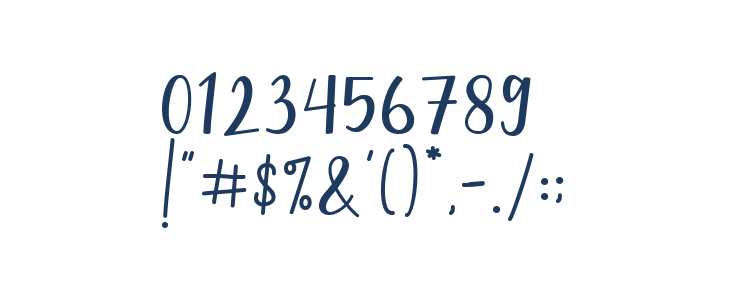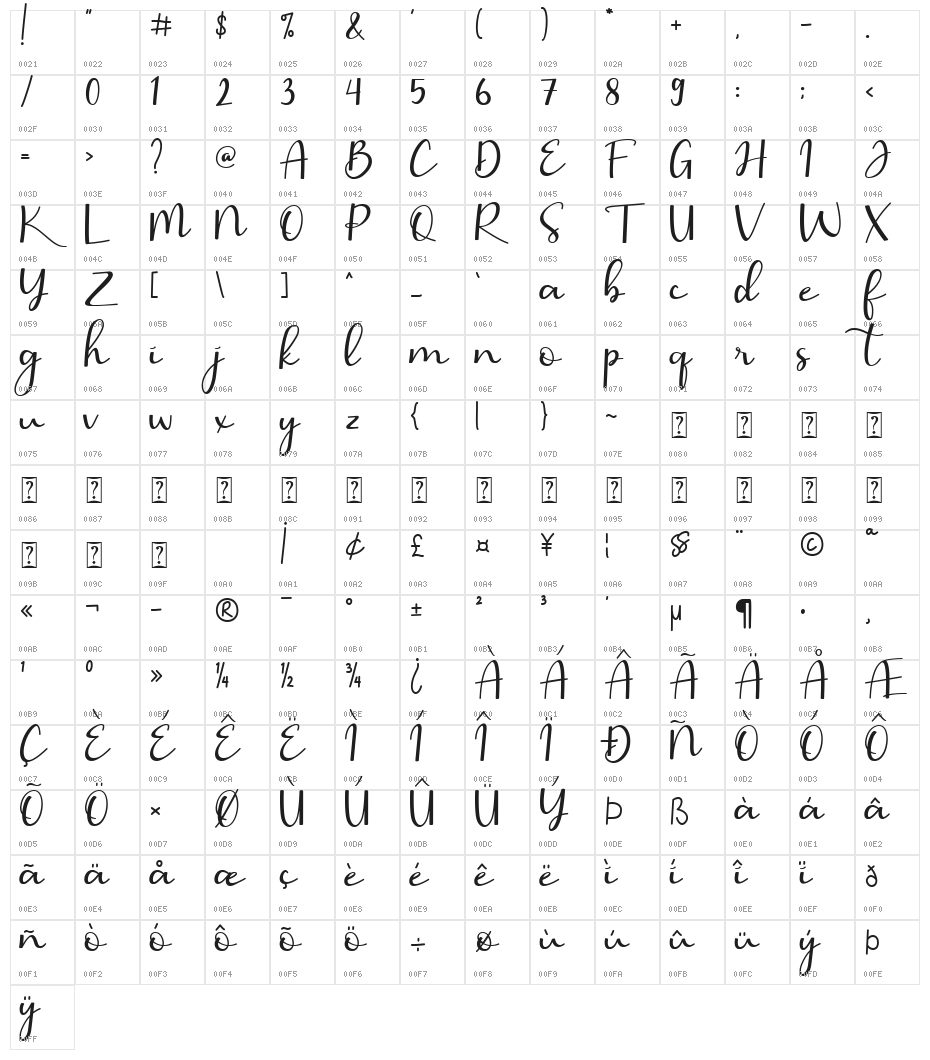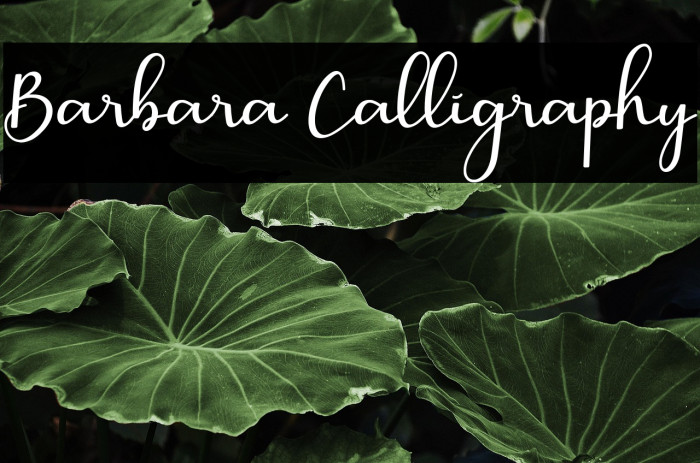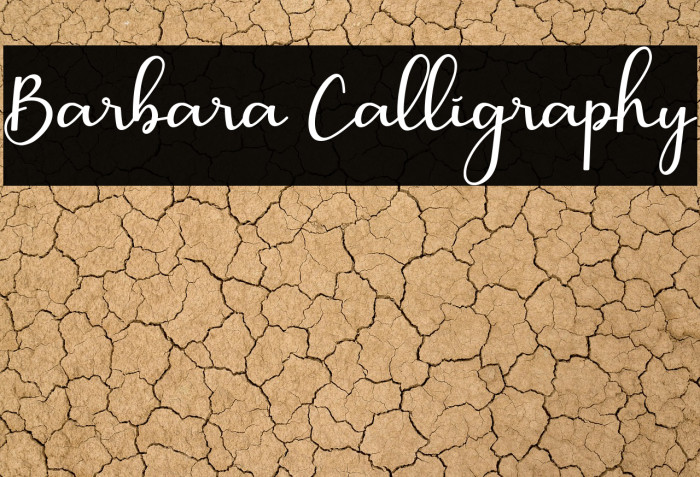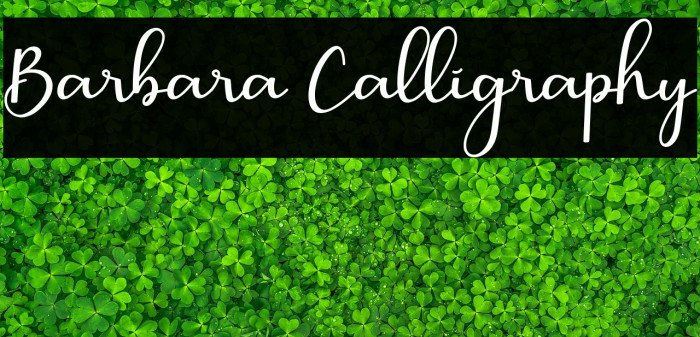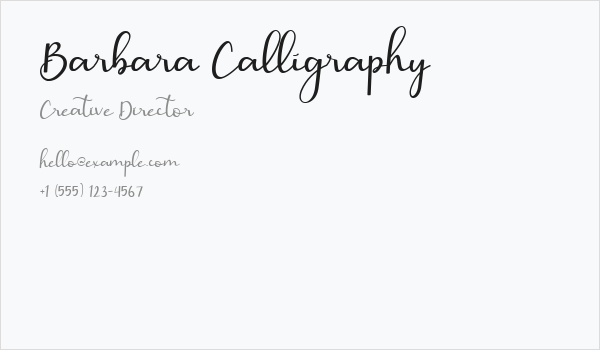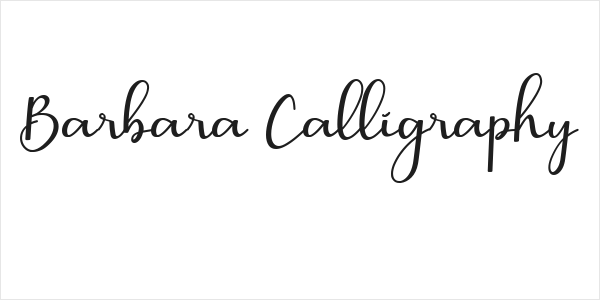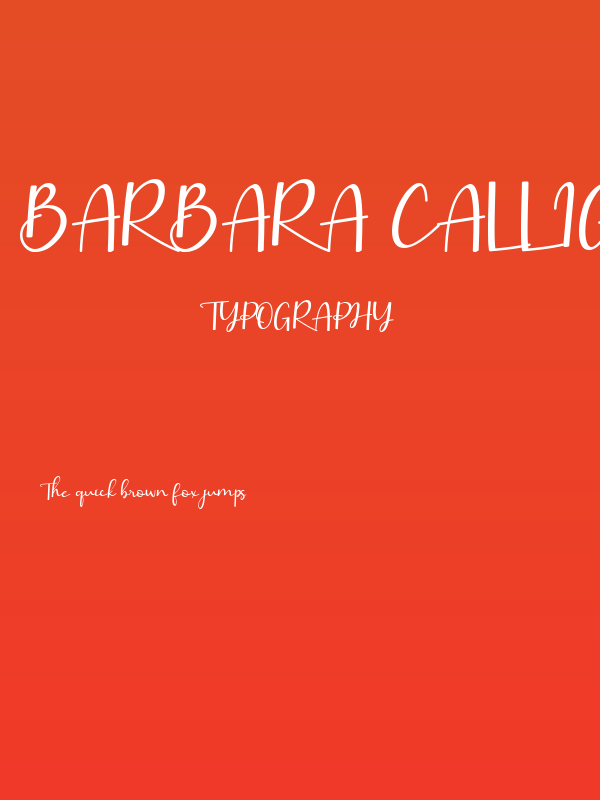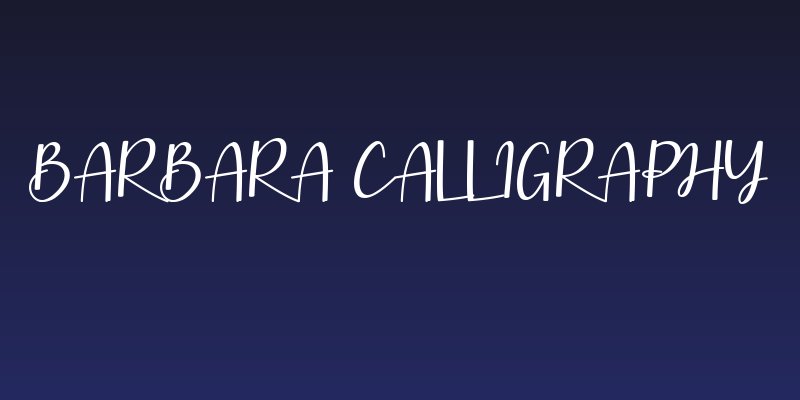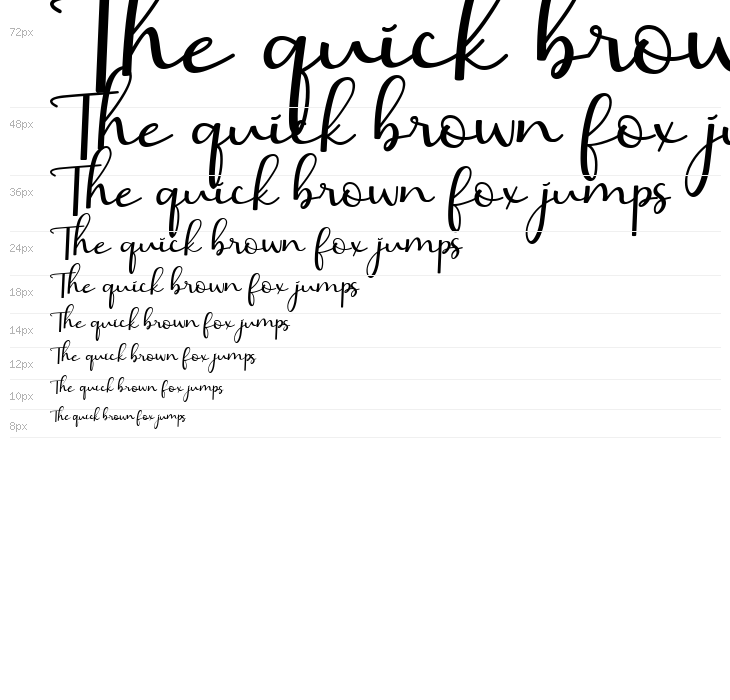
Barbara Calligraphy Font
Barbara Calligraphy Description
This font exudes a charming and elegant calligraphic style, characterized by its fluid and graceful strokes. The uppercase letters are tall and slightly narrow, with a playful yet sophisticated flair. The lowercase letters maintain a consistent flow, enhancing the script-like appearance. Numbers are clear and legible, complementing the overall aesthetic. Special characters are thoughtfully designed, adding to the font's versatility. The smooth curves and delicate lines make it suitable for projects that require a touch of elegance and personal expression.
| Overall Style | Elegant, Decorative |
| Use Case | Headlines, Invitations, Branding |
| Proposed Projects | Ideal for wedding invitations, greeting cards, branding, and elegant packaging designs. |